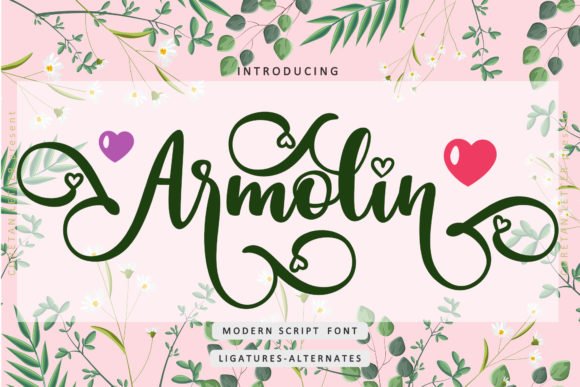
Adding a Touch of Whimsy with the Armolin Font
As I sat at my desk, surrounded by scraps of paper and half-finished projects, I stumbled upon a font that made my heart skip a beat – the Armolin Font. Its delicate script and playful charm immediately caught my attention, and I knew I had to learn more about it.
Armolin Font is a beautiful handwritten font designed to add a touch of romance and whimsy to any design project. Whether you’re creating wedding invitations, cards, or any other design that requires a personal and intimate feel, this font is sure to deliver. With its PUA encoding, accessing all the glyphs and swashes is a breeze, making it a valuable tool for designers looking to add a unique touch to their work.
Key Features of Armolin Font
- Unique Characteristics: Armolin Font features a unique blend of modern and vintage elements, with intricate details and ornaments, making it perfect for creating visually striking designs.
Armolin Font Review
Overall, I think Armolin Font is a beautiful and elegant script font that can be used for various design purposes. ✨ Its flowing lines and smooth curves make it perfect for creating a sense of sophistication and luxury. ✨
- Armolin Font’s elegant and refined look makes it suitable for high-end branding, advertising, and packaging design.
- The font’s script style adds a touch of personality and uniqueness to any design project.
- The font is highly legible, making it easy to read even at smaller font sizes.
- Armolin Font may not be the best choice for body text due to its script style, which can make it harder to read for extended periods.
- The font may not be suitable for digital displays, as its design may not be optimized for small screen sizes.
- It may not be as versatile as other fonts, making it less suitable for projects that require a lot of customization.
Armolin Font is a beautiful and elegant script font that can be used for various design purposes. While it may have some limitations, its unique look and feel make it a great choice for high-end branding and advertising projects. With a little creativity and experimentation, designers can unlock the full potential of this font and create stunning designs that stand out from the crowd.
Armolin Font is ideal for creative projects, such as:
- Business cards and invitations
- Brand logos and identities
For best results, pair Armolin Font with bold and clean design elements.
Alternatives to Armolin Font
Montserrat is a sans-serif font designed for digital media. It’s a modern and clean font suitable for titles, headings, and body text. Montserrat is a great alternative to Armolin Font when you need a more contemporary look.
Montserrat has a similar geometric feel to Armolin Font, but it’s more streamlined and has a wider range of weights and styles. Use Montserrat when you want a font that’s both modern and versatile.
Open Sans is a popular sans-serif font that’s highly legible and versatile. It’s a great choice for body text, titles, and headings. Open Sans is a good alternative to Armolin Font when you need a font that’s easy to read and works well in both print and digital media.
Open Sans has a similar friendly and approachable feel to Armolin Font, but it’s more rounded and has a softer edge. Use Open Sans when you want a font that’s easy to read and works well in a variety of contexts.
Is Armolin optimized for digital use, and what are its technical specifications?